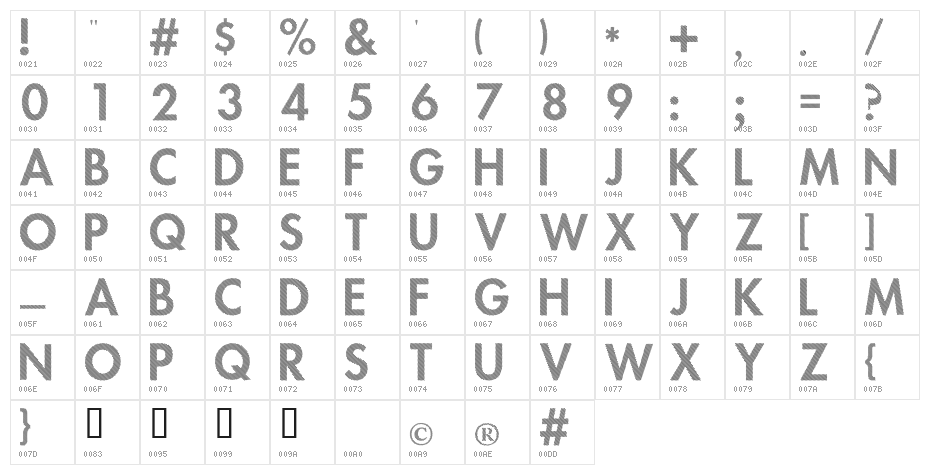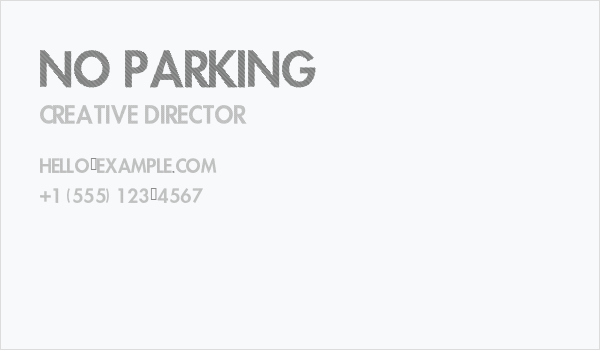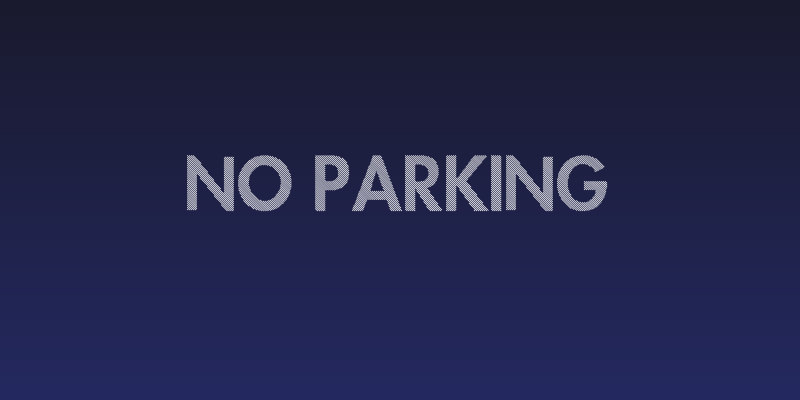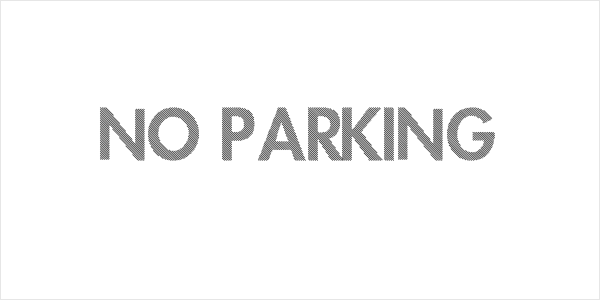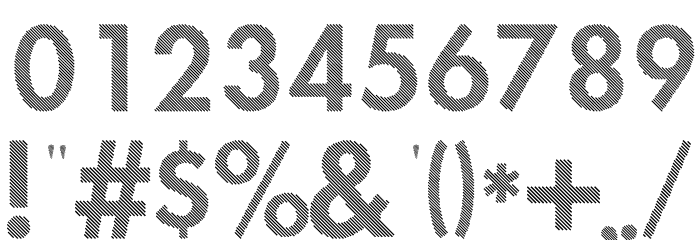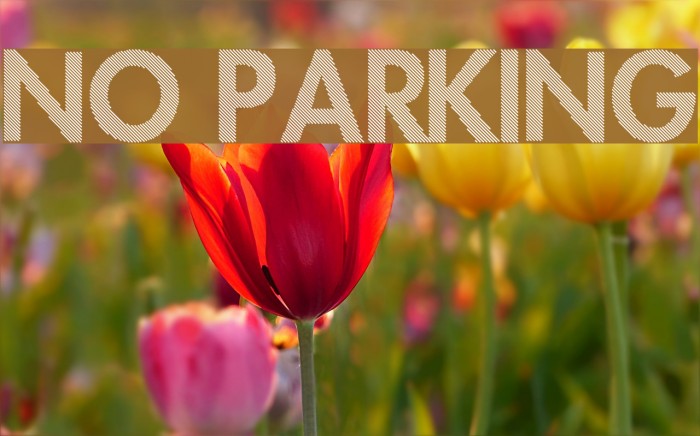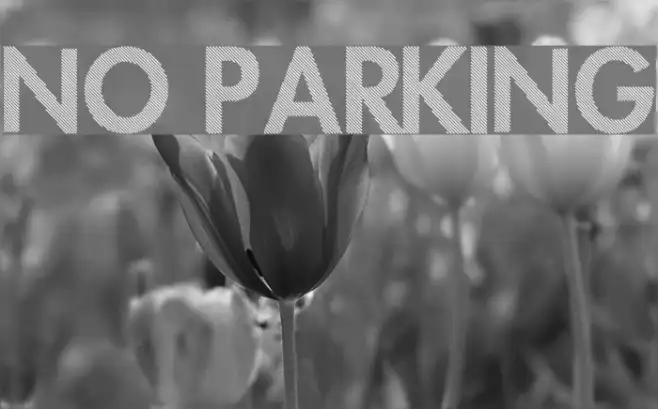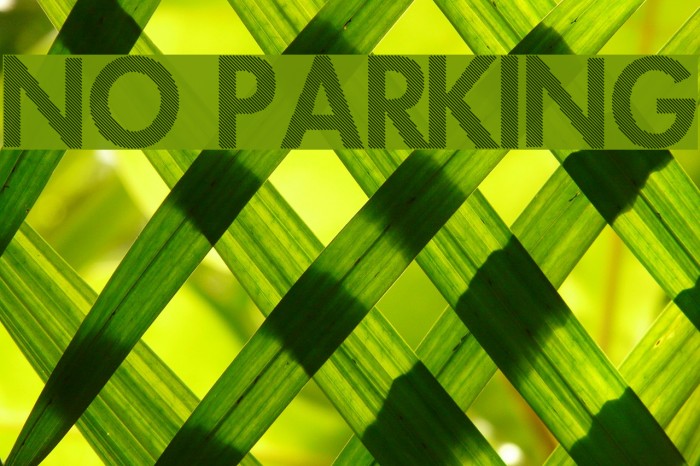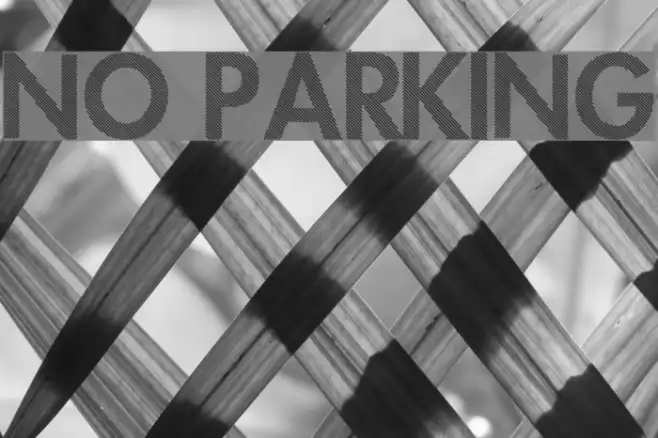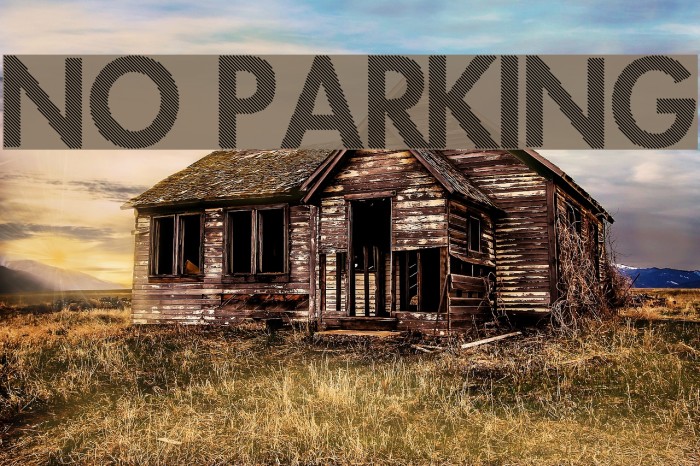
No Parking Font
No Parking Description
This font features bold, uppercase letters with a distinct diagonal line pattern running through each character, creating a textured appearance. The characters are evenly spaced and have a modern, geometric style. The numbers and special characters follow the same design, maintaining consistency across the set. The font's boldness and unique pattern make it stand out, suitable for eye-catching displays or signage. Its clean lines and structured form lend it a professional yet creative look, ideal for projects that require a strong visual impact.
| Use Case | Headlines, Logos, Signage |
| Proposed Projects | Ideal for signage, posters, branding, and any project needing a bold, modern look. |